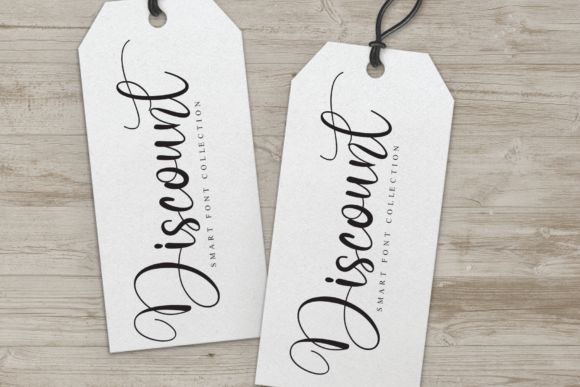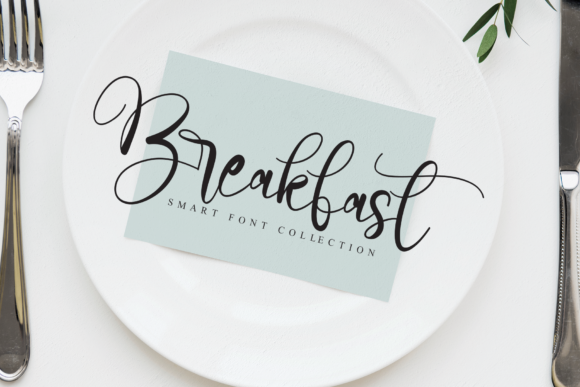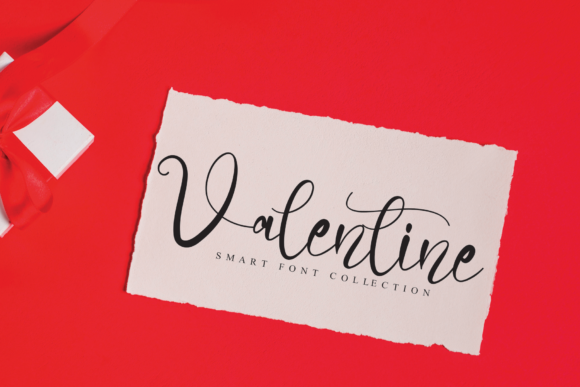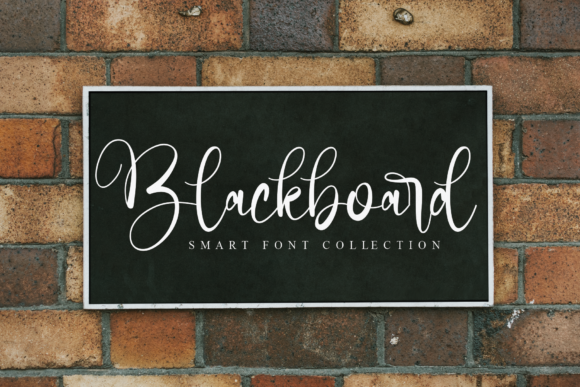
Introducing Cutelove Font: Elevate Your Designs with Elegance and Sophistication
Are you a designer or crafter looking for a font that exudes class, elegance, and modernity? Look no further than Cutelove Font, a beautiful and refined script font that is perfect for a wide range of design projects. From logos and branding to invitations, stationery, wedding designs, and social media posts, Cutelove Font is the ideal choice for anyone seeking to add a touch of sophistication to their work.
What Makes Cutelove Font So Special?
Cutelove Font boasts a unique blend of classic and modern elements, making it a versatile and stylish addition to any design. Its elegant and refined script style is perfect for creating luxurious and high-end designs that are sure to impress. Whether you’re working on a wedding invitation, a brand logo, or a social media post, Cutelove Font is sure to elevate your design and leave a lasting impression.
Key Features of Cutelove Font
- Classy and Elegant: Cutelove Font features a sophisticated and refined script style that is perfect for creating high-end designs.
- Modern Look: With its clean lines and modern aesthetic, Cutelove Font is ideal for designers and crafters who want to create designs that are both stylish and contemporary.
- Versatile: Cutelove Font can be used for a wide range of design projects, including logos, branding, invitations, stationery, wedding designs, social media posts, and more.
- Easy to Read: Despite its elegant and refined style, Cutelove Font is easy to read and understand, making it perfect for designs that require a clear and concise message.
Uses for Cutelove Font
Cutelove Font is a versatile font that can be used for a wide range of design projects, including:
- Logos and Branding: Create a lasting impression with a custom logo or brand identity that features Cutelove Font.
- Invitations and Stationery: Add a touch of elegance to your invitations, greeting cards, and stationery with Cutelove Font.
- Wedding Designs: Make your wedding designs truly special with Cutelove Font, perfect for wedding invitations, programs, and more.
- Social Media Posts: Elevate your social media posts with Cutelove Font, perfect for creating stylish and engaging content.
Why Choose Cutelove Font?
With so many fonts to choose from, why should you choose Cutelove Font? Here are just a few reasons:
- Unique and Exclusive: Cutelove Font is a unique and exclusive font that will help your designs stand out from the crowd.
- High-Quality: Cutelove Font is a high-quality font that is designed to deliver exceptional results, every time.
- Easy to Use: Cutelove Font is easy to use and can be easily integrated into your design workflow.
In conclusion, Cutelove Font is a beautiful and refined script font that is perfect for designers and crafters looking to add a touch of elegance and sophistication to their work. With its classy and modern look, versatile uses, and high-quality design, Cutelove Font is an excellent choice for anyone seeking to elevate their designs and create a lasting impression.